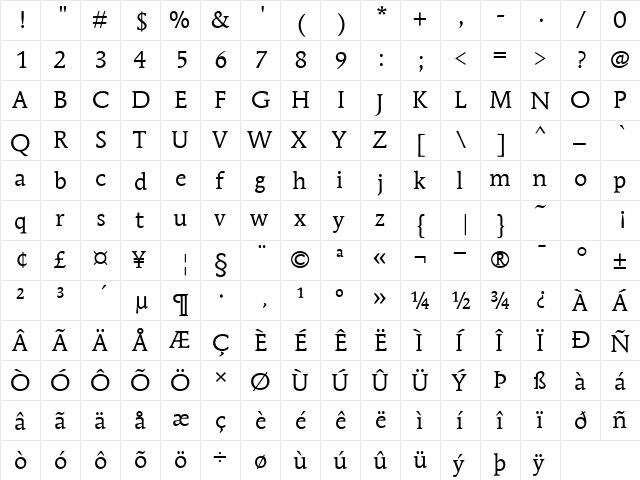
MendozaRomanITC-Book Book Font Preview
MendozaRomanITC-Book Book
Design Context for MendozaRomanITC-Book Typeface
MendozaRomanITC-Book takes a measured approach to typography — its balanced proportions and neutral character make it a reliable workhorse for both digital and print work.